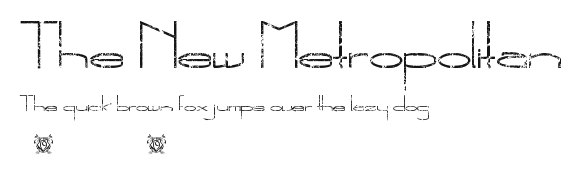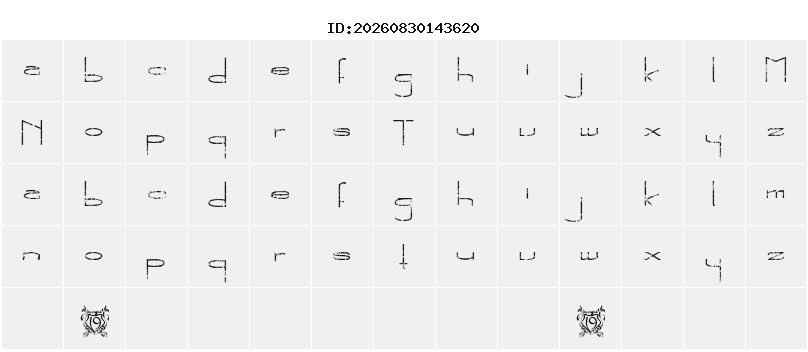
• Font Name: The New Metropolitan
• Full Font Name: The New Metropolitan
The New Metropolitan.ttf is a modern, elegant sans-serif font designed for ultimate readability and visual harmony. Perfect for branding, headlines, web design, and print materials.